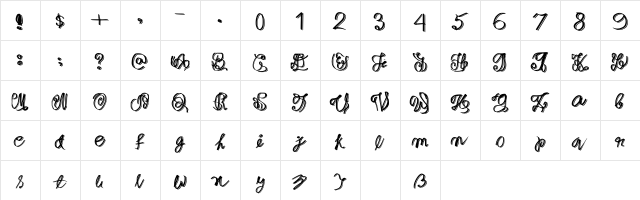
Cursive Elaborate Regular
Design Context for Cursive Elaborate Typeface
Cursive Elaborate flows with the natural rhythm of handwritten lettering, making it ideal for designs that call for warmth and personal expression.
Font Pairing: Combine Cursive Elaborate with a simple geometric sans for maximum contrast — the tension between flowing curves and clean structure is a classic typographic pairing.
Pro Tip: Pair Cursive Elaborate with a clean sans-serif for supporting text. The contrast between fluid script and geometric structure creates an elegant typographic hierarchy.